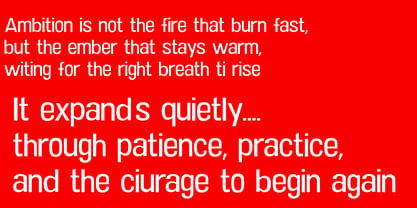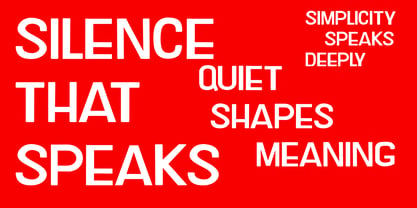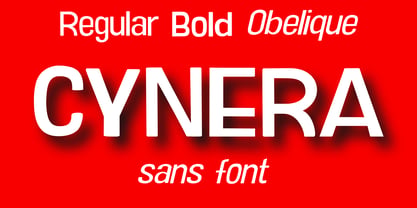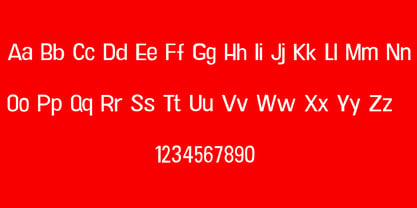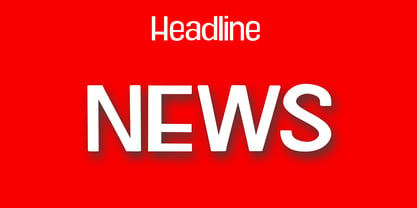
Cynera
by Eroane Creative
The Cynera Font Family was designed by Erick Rismawan and published by Eroane Creative. Cynera contains 3 styles and family package options. More about this family
Cynera is a refined modern sans-serif designed for brands that value quiet confidence and precision. With clean geometry, soft curves, and carefully balanced proportions, Cynera blends minimalism with subtle personality — making it ideal for luxury branding, editorial layouts, UI design, and contemporary visual identities. Every character is crafted for clarity and rhythm, featuring gentle transitions, elegant terminals, and harmonious spacing that elevate readability without losing style. Cynera comes in Regular, Bold, and Oblique styles — offering versatility from calm elegance to assertive emphasis. The Bold cut provides strong presence, while the Oblique style adds modern motion and dynamic expression. Whether used for headlines, logotypes, or refined body text, Cynera delivers a timeless aesthetic with modern sophistication.
Designers: Erick Rismawan
Current Foundry: Eroane Creative